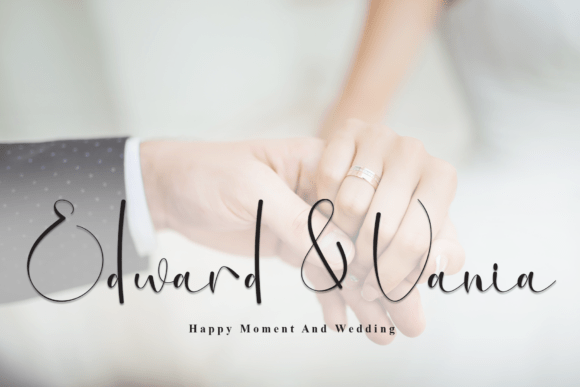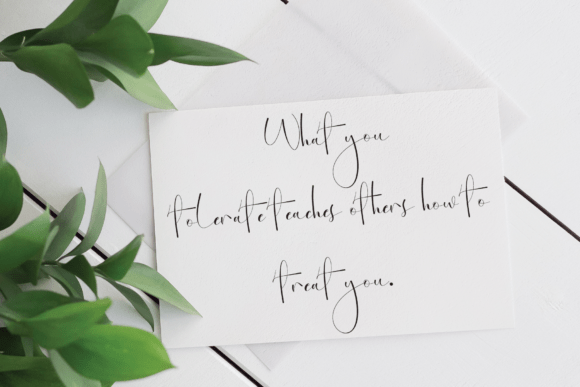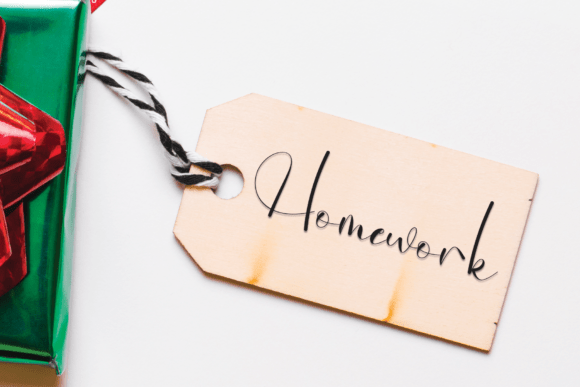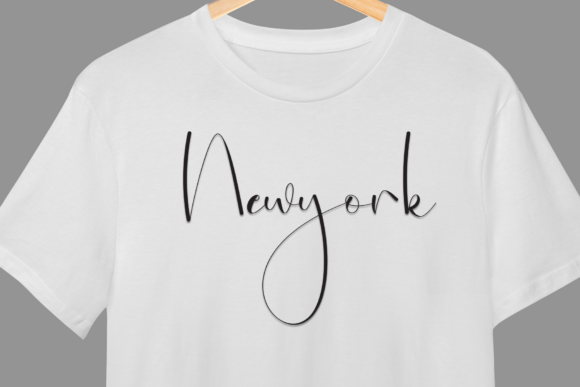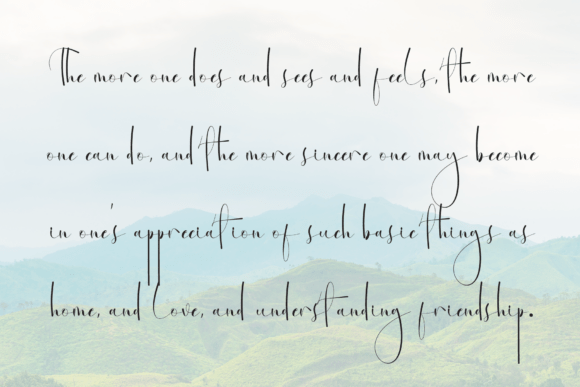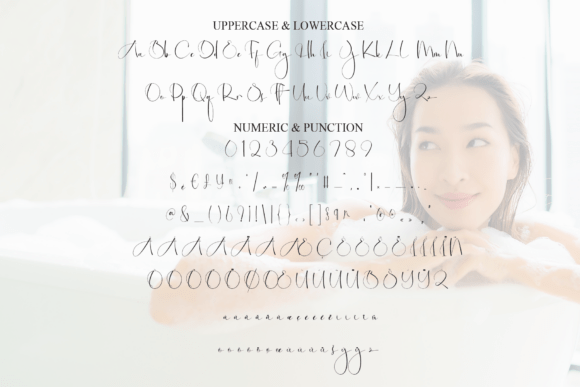
Bathine Font: Elevate Your Designs with Elegant and Creative Typography
Are you a designer, crafter, or creative enthusiast looking for a unique and stylish font to take your projects to the next level? Look no further than Bathine Font, a beautifully crafted typeface designed to provide an extraordinary experience. With its latest style letters, Bathine Font is perfect for a wide range of applications, from wall displays and wedding invitations to social media posts, logos, advertisements, product packaging, and more.
What Makes Bathine Font Special?
Bathine Font is more than just a font – it’s a creative tool that can elevate your designs and add a touch of elegance and sophistication. Its unique and stylish letters are carefully crafted to provide a tasteful and refined look that will set your projects apart from the rest. Whether you’re a professional designer or a DIY crafter, Bathine Font is the perfect choice for anyone looking to add a personal touch to their work.
Endless Possibilities with Bathine Font
With Bathine Font, the possibilities are endless. You can use it to create stunning wall displays, elegant wedding invitations, eye-catching social media posts, and professional-looking logos and advertisements. The font is also perfect for product packaging, product designs, labels, photography, watermarks, and more. Whether you’re working on a personal project or a client’s brief, Bathine Font is the perfect choice for anyone looking to add a touch of creativity and style.
Bathine Font is perfect for designers and crafters who want to add a touch of elegance and sophistication to their work. Whether you’re working on a personal project or a client’s brief, Bathine Font provides the perfect combination of style and versatility. With its unique and stylish letters, Bathine Font is sure to take your designs to the next level.
Bathine Font is a unique and stylish font that’s perfect for designers, crafters, and creative enthusiasts. With its elegant and refined look, Bathine Font is ideal for a wide range of applications, from wall displays and wedding invitations to social media posts, logos, and more. With its easy installation, compatibility with a range of design software, and long-term support and updates, Bathine Font is the perfect choice for anyone looking to elevate their designs and add a touch of creativity and style.